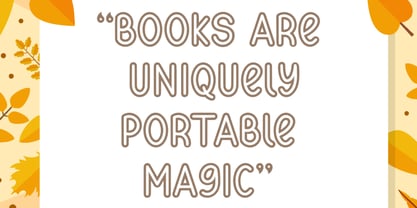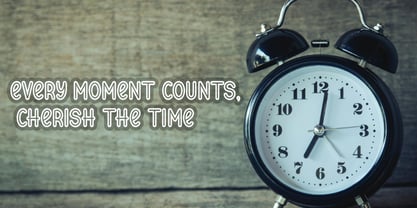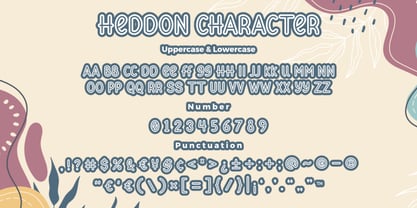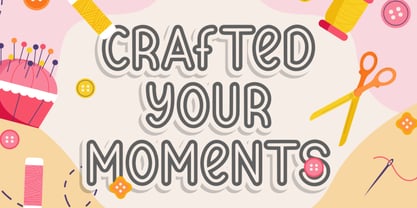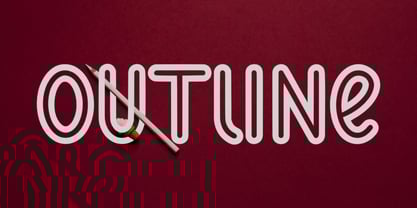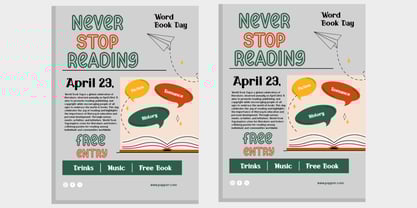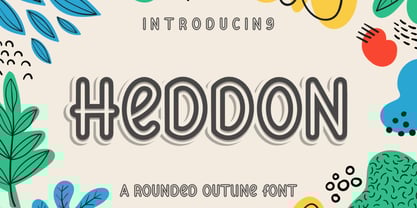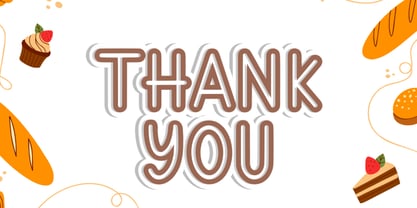
Heddon Rounded Outline
by Bayuktx
The Heddon Rounded Outline Font Family was designed by Bayu Aji Fais Mursid and published by Bayuktx. Heddon Rounded Outline contains 1 styles.
Heddon a Rounded Outline Font, This font is made with a high premium quality level which you can use as flyers, quotes, posters, banners, packaging, merchandise, logotypes and much more.
FEATURES :
* Uppercase
* Lowercase
* Number
* Punctuation
* Multilingual
Designers: Bayu Aji Fais Mursid
Publisher: Bayuktx
Foundry: Bayuktx
Design Owner: Bayuktx